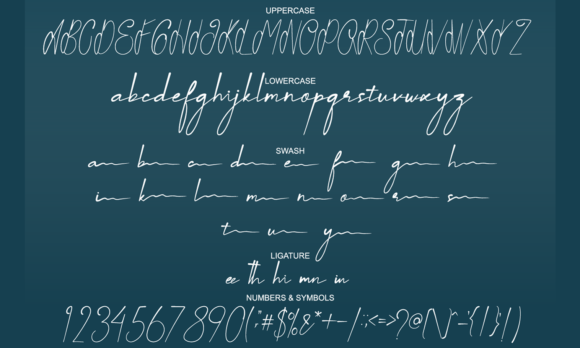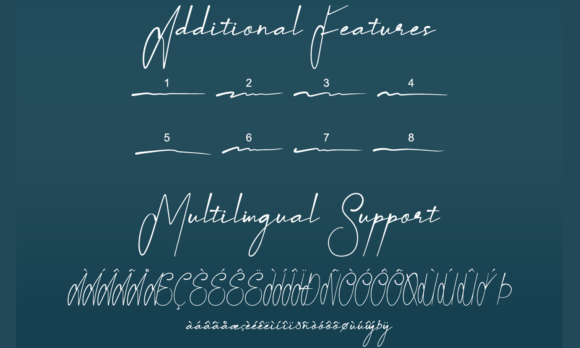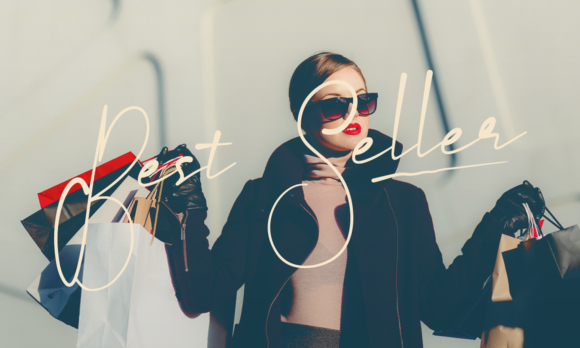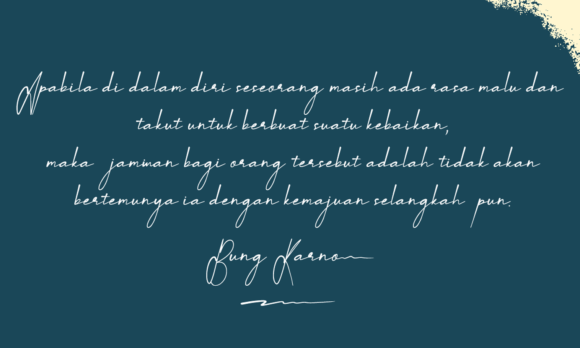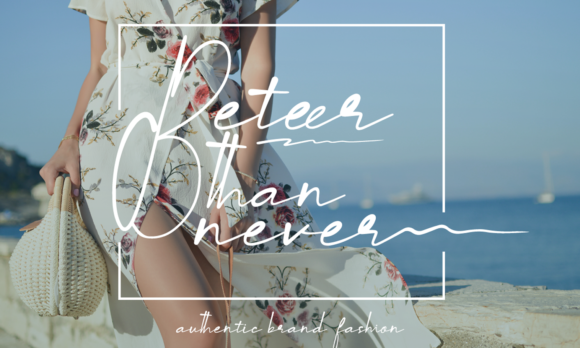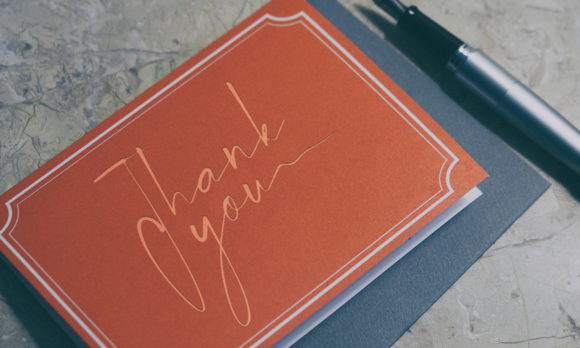
Introduction to Milionaria Font Font
Fonts play a crucial role in design, and the Milionaria Font font is a typeface that brings both character and versatility to any project. Whether you’re working on a branding project, a website, or a print design, the Milionaria Font font offers a unique style that can elevate your work.
Introducing the Milionaria script font, a typeface that’s carefully created to satisfy all design needs.
It is perfect to use on projects that need signature writing, such as logos, branding, invitation cards, business cards, and so on This font is inspired by a natural and elegant handwriting style.
Key Features of Milionaria Font Font
• βœ… High-quality typeface designed for professional use
• βœ… Includes a wide range of glyphs and characters
• βœ… Ideal for logos, branding, websites, and print
Why Choose Milionaria Font Font?
The Milionaria Font font is more than just a typeface – it’s a design tool that helps you communicate your message with style and clarity. Its unique character set and versatile design make it suitable for a wide range of applications, from elegant invitations to bold headlines.
With its carefully crafted letterforms and balanced proportions, the Milionaria Font font ensures readability and visual appeal across all mediums.
What makes Milionaria Font font special?
The Milionaria Font font stands out with its unique design, exceptional readability, and versatility across various design applications.